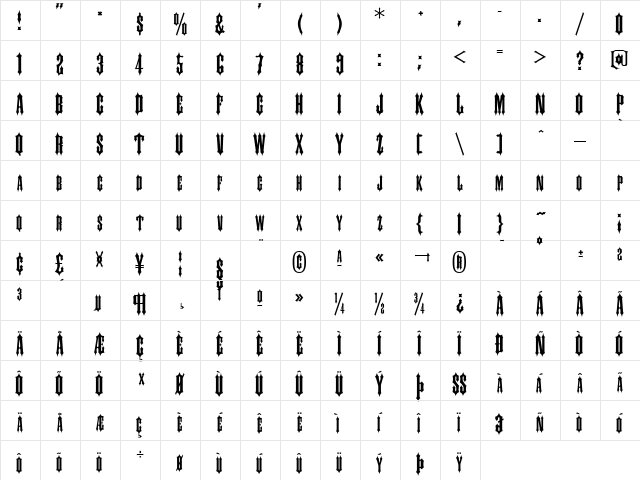
Slayer-Plain Medium
Design Context for Slayer-Plain Typeface
Slayer-Plain is a composed and adaptable typeface that performs quietly and consistently across a wide range of design contexts.